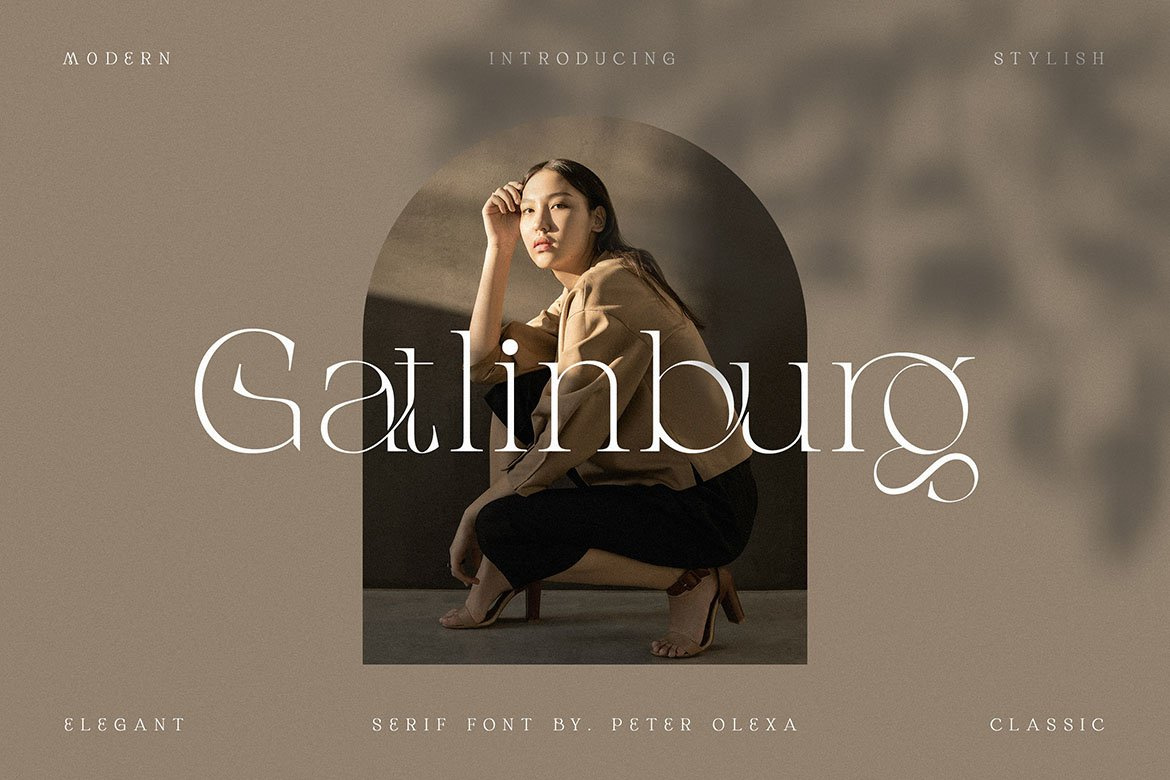
Gatlinburg - Modern Serif Font
Lot of alternates and ligatures will help you to create unique and original logo design or website header! Enjoy :)
2 styles: Regular & Italic
Multilingual support
Lot of alternate characters
Lot of ligatures
Great for modern branding projects!